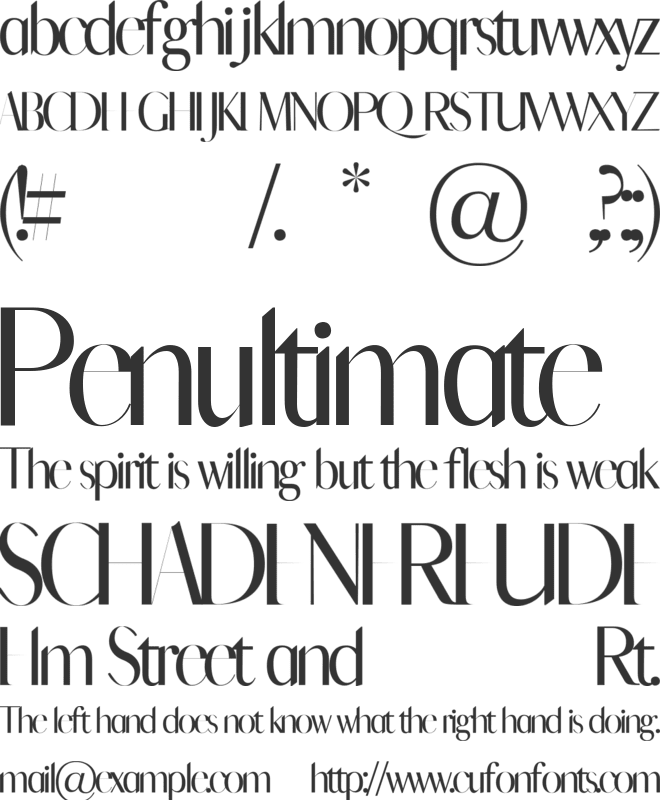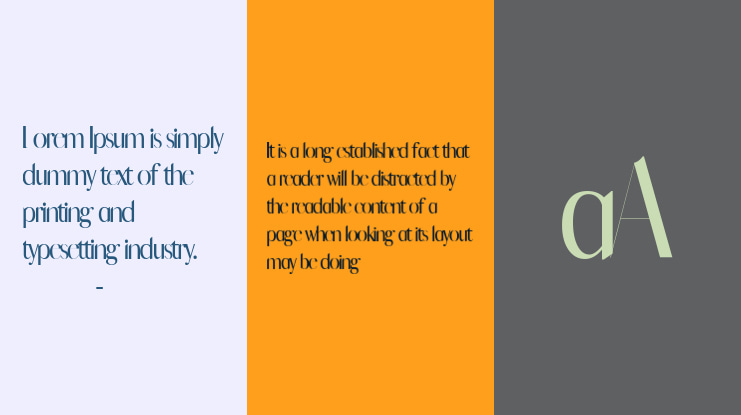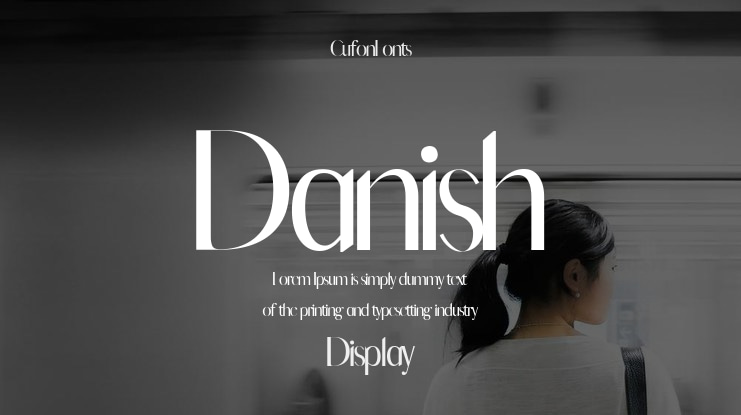
Danish Font Family
Danish is a stylish serif with 520+ glyphs and multilingual support—perfect for editorial elegance, branding, and luxury packaging.